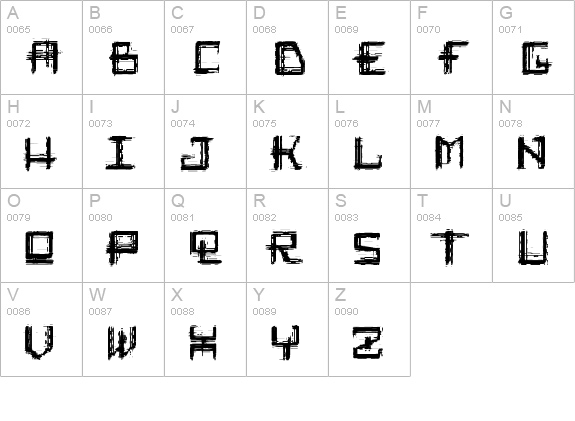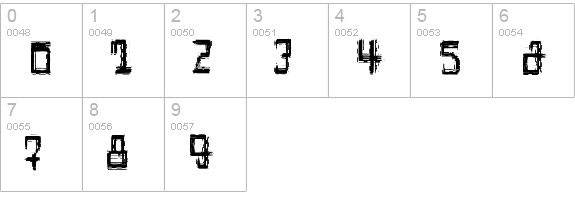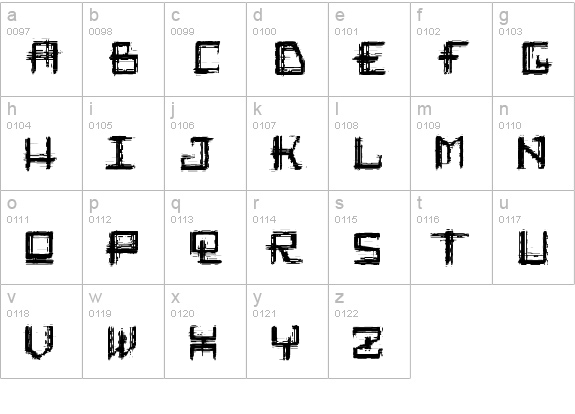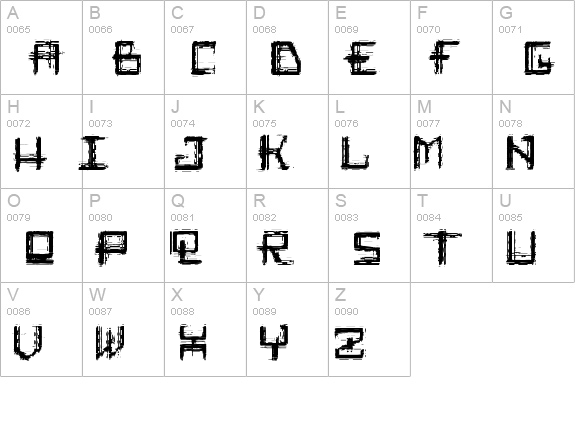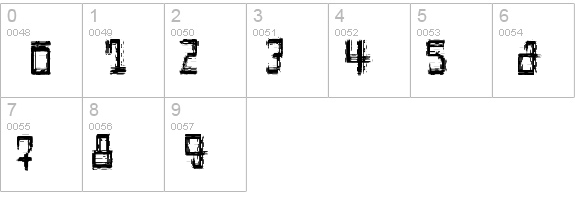
Rabid_Science Font Details
Introducing Rabid_Science, a groundbreaking font that merges the worlds of science and design seamlessly. This innovative typeface embodies the essence of scientific discovery with its sharp angles and precise curves, capturing the essence of laboratory experiments and cutting-edge research. Rabid_Science is not only visually captivating, but it also possesses an unparalleled versatility that makes it suitable for a wide range of projects. Whether you're working on a scientific journal, a tech startup logo, or a futuristic poster, this font will effortlessly bring your ideas to life. One of the most remarkable aspects of Rabid_Science is that it is freely available for download at FontsMarket.com. This means that scientists, designers, and creatives from all walks of life can access this extraordinary font without any financial barriers. We believe that knowledge and creativity should be accessible to all, and by offering Rabid_Science for free, we are ensuring that everyone can benefit from its unique aesthetic and enhance their projects with its scientific flair. With its extensive character set, including uppercase and lowercase letters, numerals, punctuation marks, and special characters, Rabid_Science provides endless possibilities for experimentation and expression. It effortlessly combines legibility with a touch of scientific sophistication, making it the ideal choice for any project that requires both clarity and innovation. Download Rabid_Science today from FontsMarket.com and embark on a journey of scientific exploration and design excellence. Unleash your creativity with this remarkable font and witness the transformation it brings to your projects. Get ready to make a bold statement and captivate your audience with the power of Rabid_Science.